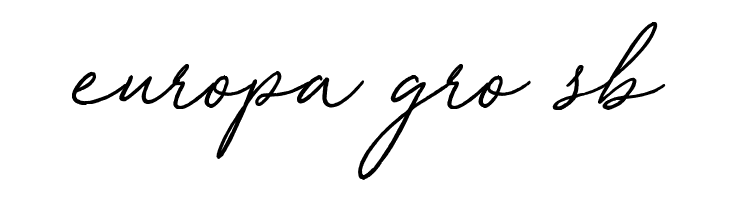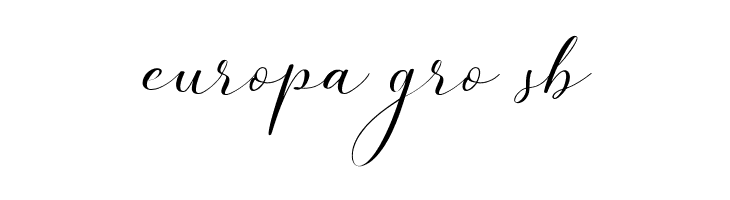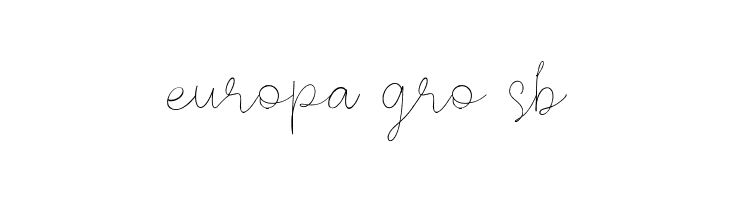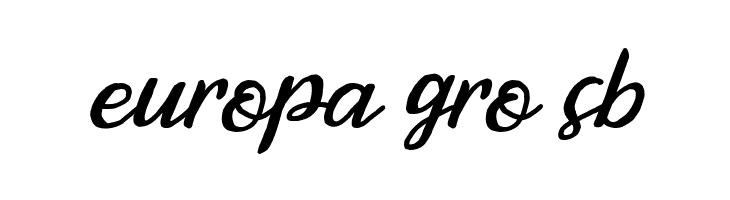
A flowing, elegant script font with smooth, connected strokes.
A sophisticated script font with elegant swirls and flowing cursive style.
An elegant script font with flowing, interconnected letters and decorative swashes.
A fluid and elegant script font with a handwritten appearance.
A sophisticated cursive script with decorative swirls and elegant curves.
An elegant script font with flowing, cursive letters and intricate swashes.
An elegant, cursive font with flowing, ornate characters.
A smooth, flowing script font with an elegant italic style.